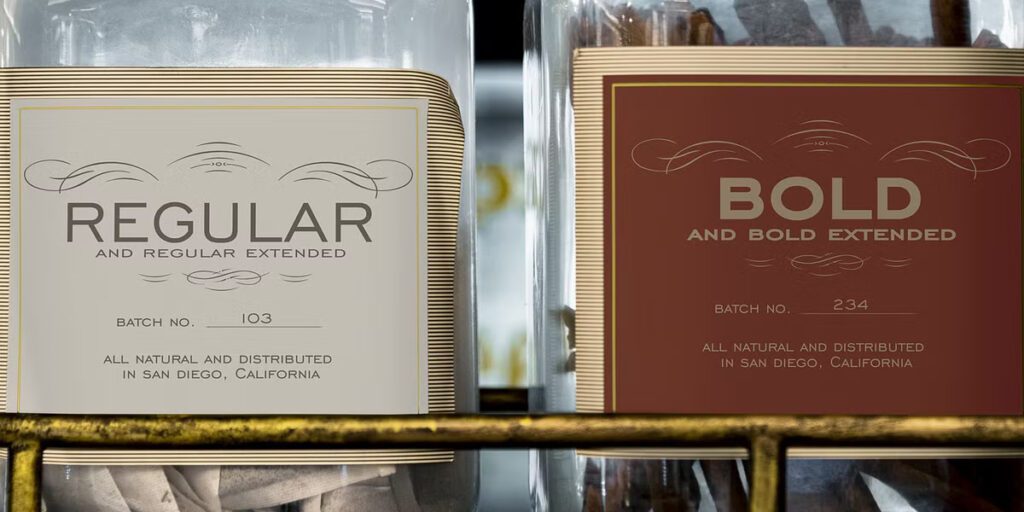
A quick naming note before anything else. “Gothic” here does not mean blackletter. In American type naming, gothic is an old word for sans serif, and Engravers Gothic is a wide, capitals-based sans used on stationery, not a medieval-style script.
What Engravers Gothic is, and why engravers used it
Typewolf describes Engravers Gothic as a grotesque sans serif with “wide, extended letterforms available in uppercase only.” It looks like Copperplate Gothic without that typeface’s tiny serifs, and the wide letters stay legible at small sizes. Typewolf notes the style was “popular with engravers of the early twentieth century,” which is where the name comes from: it was a standard choice for engraved business cards, letterheads and invitations.
The FontSite listing on Creative Market went up on 16 October 2024, and Creative Market files it under Sans Serif. The product description calls it a bold, classic font for business logos and luxury branding that stays readable. FontSite is run by Sean Cavanaugh, who has headed the foundry since 1996 according to type historian Luc Devroye, and it releases many of its typefaces with an “FS” suffix, as with this one.
What’s in the Engravers Gothic FS family
- Styles: the description names Regular, Bold and Extended; Fontspring counts four styles in the family.
- OpenType features: FontSite’s page lists an All Caps feature among those it documents.
- Language support: FontSite’s page refers to Latin 2 coverage for Central European languages and an Extended set that adds characters for languages such as Maltese and Esperanto.
Good uses and pairings
Because the letters are wide and capital-based, the font works best in short, spaced-out lines:
- Business cards and letterheads, the job it was originally known for.
- Law firm, jeweller, hotel or estate-agent logos that need a formal, established look.
- Small labels, captions and menu headings, where the wide shapes help legibility.
Typewolf suggests pairing it with Albertus. For a free pairing, EB Garamond gives you a classic serif for body text under an Engravers Gothic name block. If you like the look but want other commercial options, Typewolf names Sweet Sans and Sackers Gothic as similar designs.
Does Engravers Gothic FS have lowercase letters?
Typewolf describes the Engravers Gothic design as uppercase only. Check the glyph set on FontSite’s page for the FS release before you rely on it for mixed-case text.
What is the difference between Engravers Gothic FS and ParaType’s Engravers Gothic?